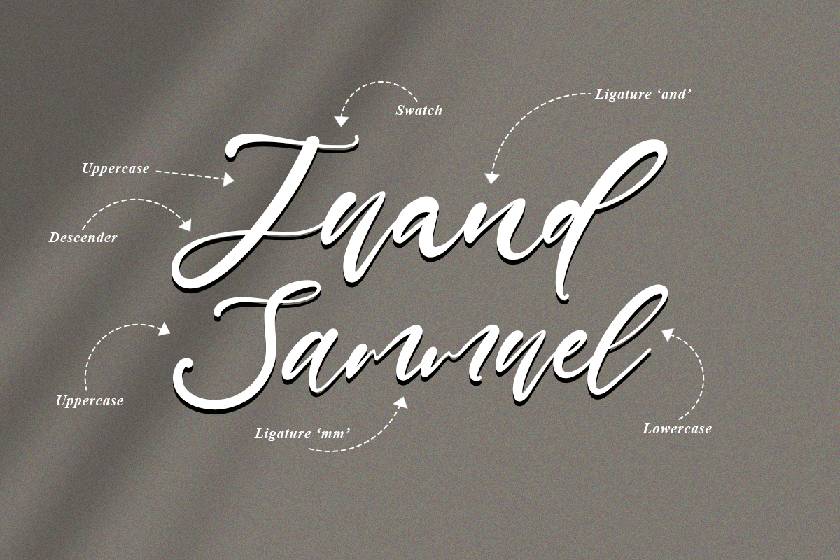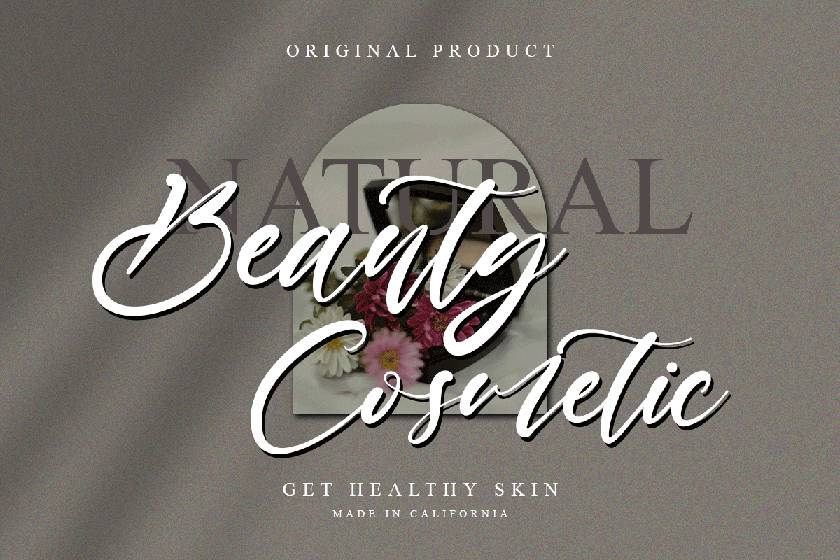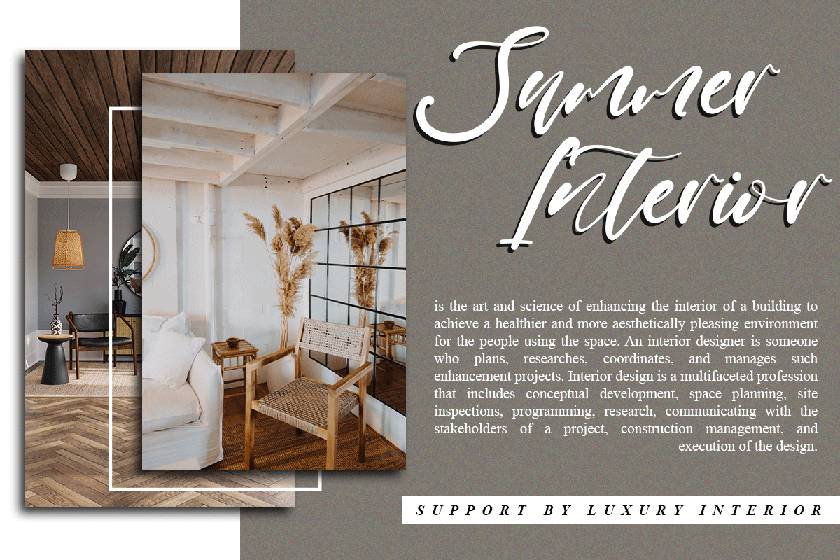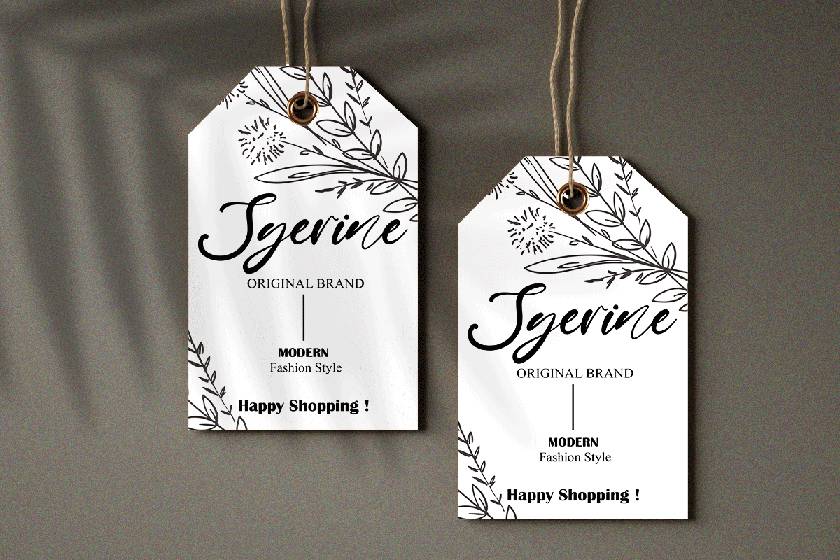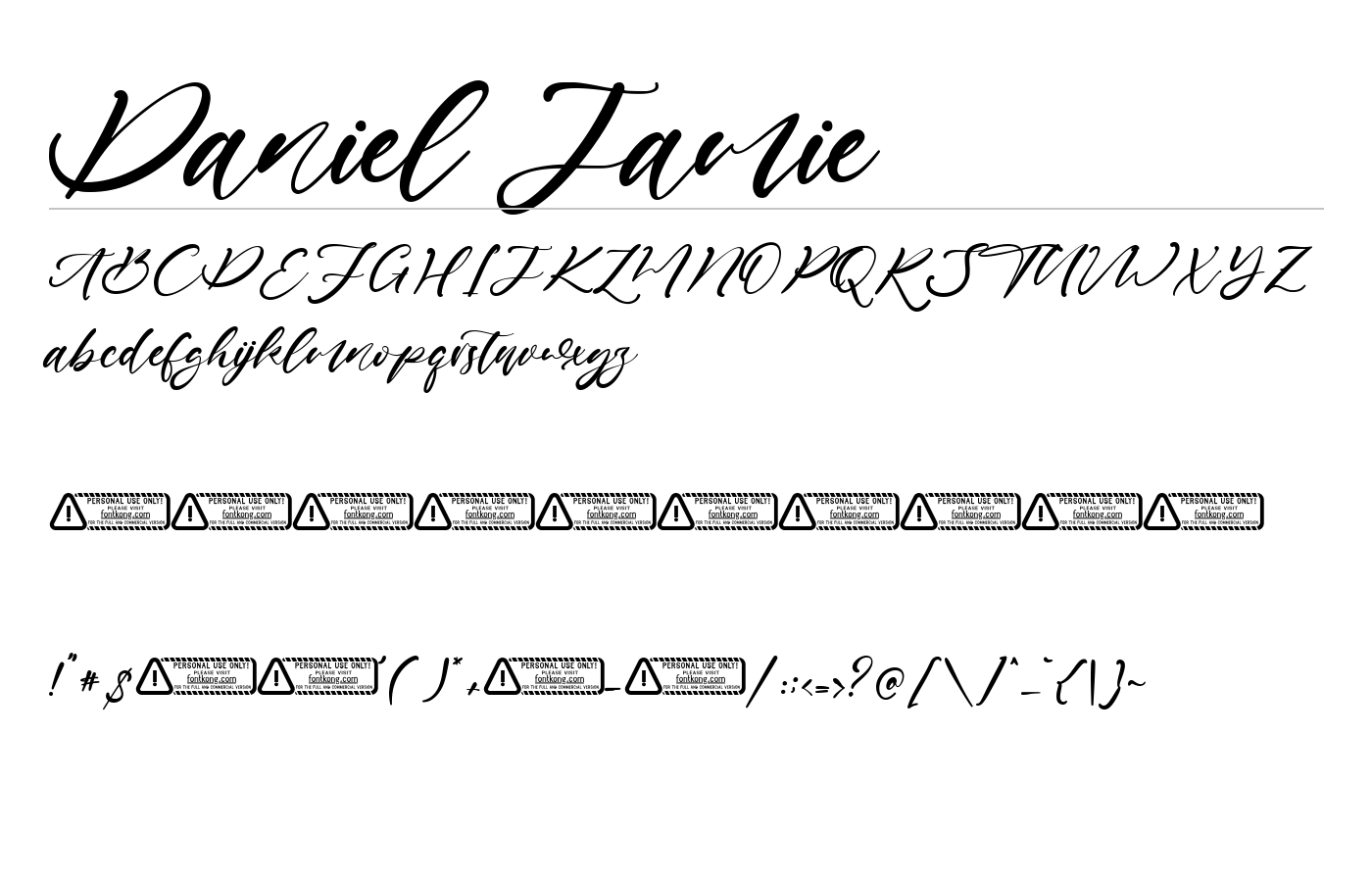
Daniel Jamie is a graceful script font featuring flowing, hand-lettered strokes with a mix of thick and thin lines that create an elegant and personal touch. Its refined and airy letterforms make it perfect for invitations, branding, and sophisticated editorial projects that seek a stylish yet approachable feel. This font works beautifully where a classy, handwritten look is desired, lending warmth and charm to any design.